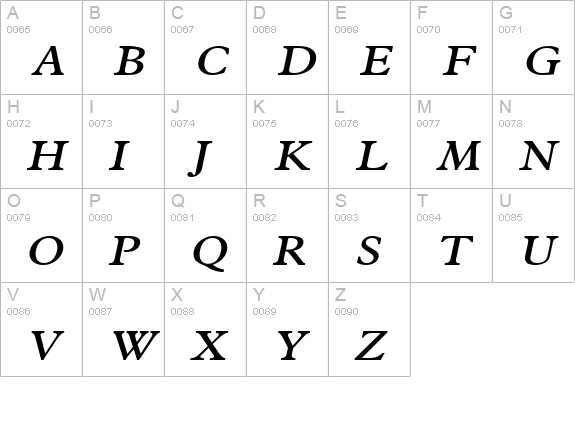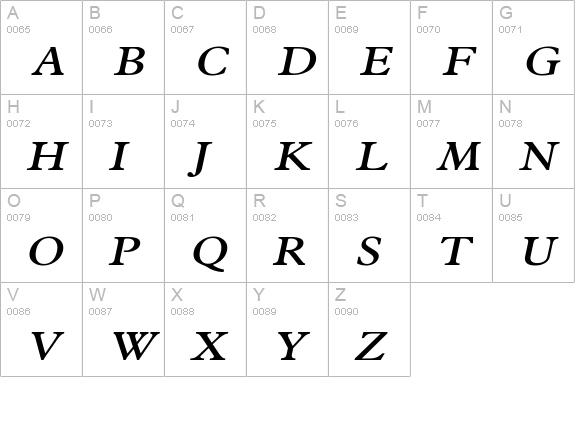
Nadine Wide Italic is a distinctive, extended-width, italic variant in the Nadine typeface family \xE2\x80\x94 well suited to design and typography projects.
Nadine Wide Italic font is a sleek and modern typeface that exudes elegance and sophistication. Its wide letterforms and italic styling give it a unique and eye-catching appeal that is perfect for a variety of design projects. This versatile font is ideal for creating logos, branding materials, posters, and more. Best of all, Nadine Wide Italic font is available for free download at FontsMarket.com. With its clean lines and stylish design, this font is sure to make a statement in any project. Don't miss out on the opportunity to add this stunning typeface to your font collection today!